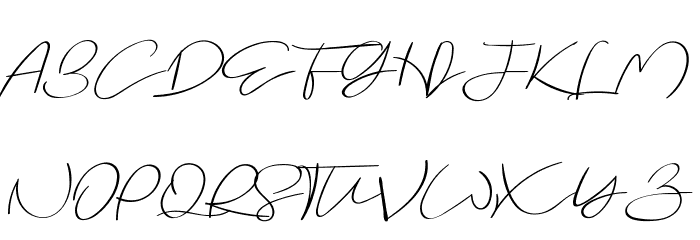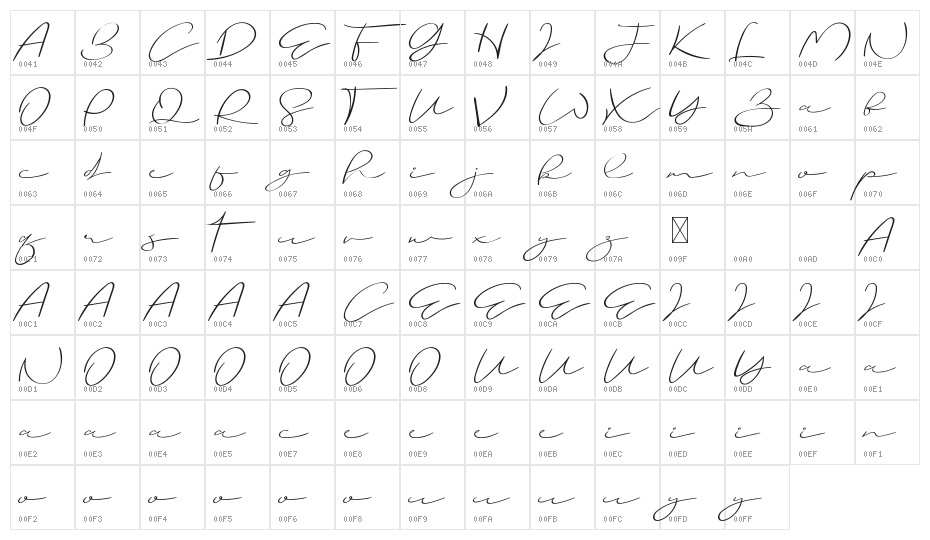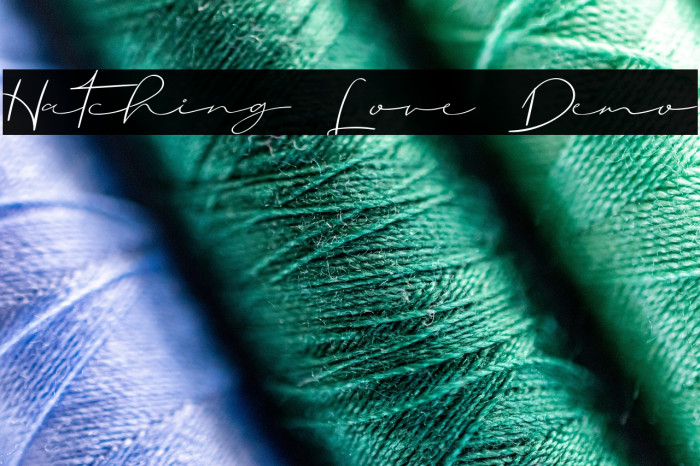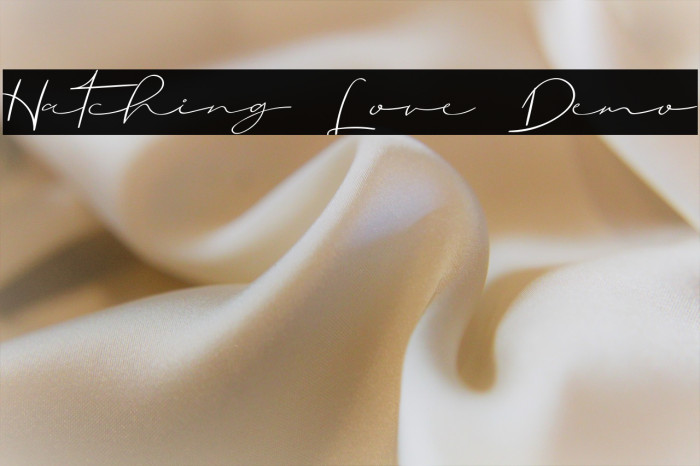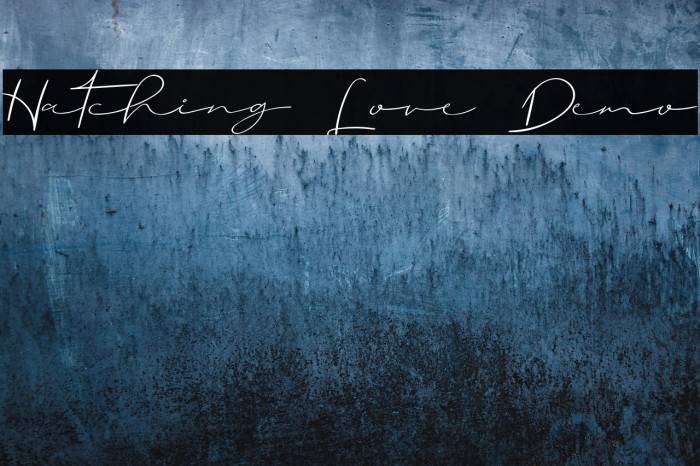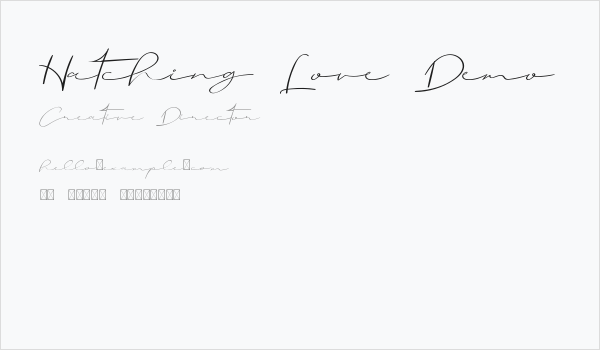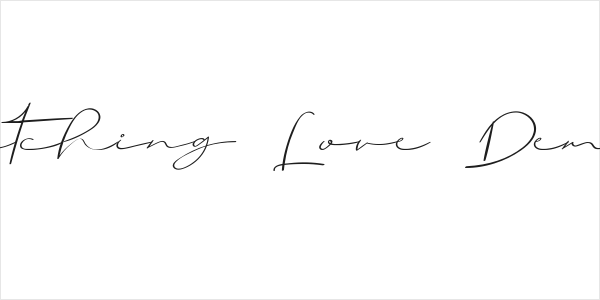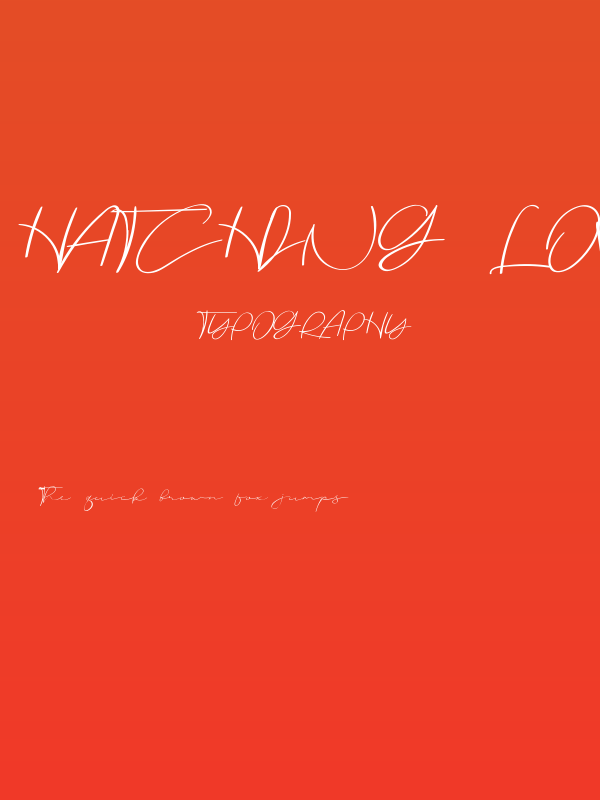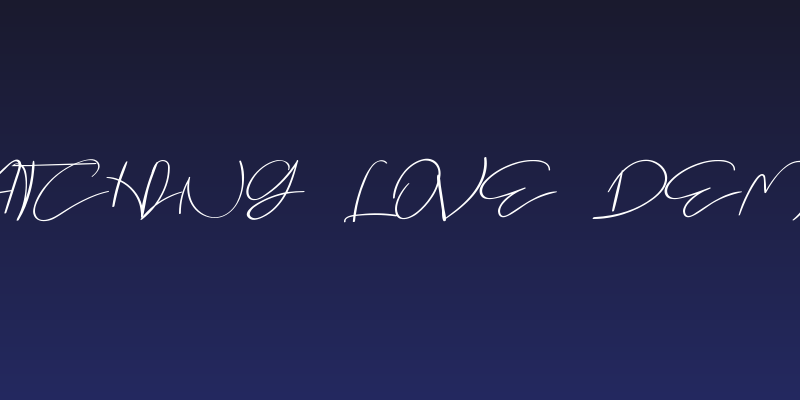
Hatching Love Demo Font
Hatching Love Demo Description
This font features a delicate and flowing script style, characterized by its elegant and continuous strokes. The letters are interconnected, creating a seamless and cursive appearance that exudes a sense of grace and sophistication. The thin lines and gentle curves give it a light and airy feel, making it ideal for projects that require a touch of elegance and personal flair. The font maintains a consistent stroke width, contributing to its refined and polished look. Its handwritten quality adds a personal and intimate touch, perfect for invitations, greeting cards, and other creative projects.
| Use Case | Invitations, Greeting cards, Personal branding |
| Proposed Projects | Ideal for wedding invitations, greeting cards, personal branding, and elegant stationery. |